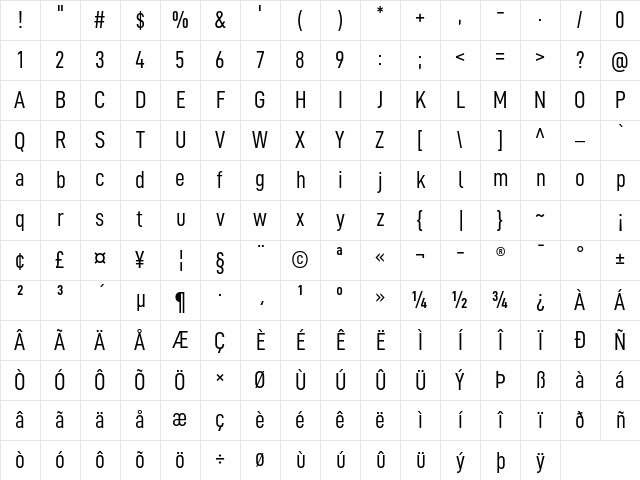
D-DIN Condensed Regular Free Font
D-DIN Condensed Regular
Foundry: Datto Inc.
Designer: Charles Nix
Design Context for D-DIN Condensed
D-DIN Condensed is a composed and adaptable typeface that performs quietly and consistently across a wide range of design contexts. Its narrow stance lets it pack a punch even in space-constrained designs.